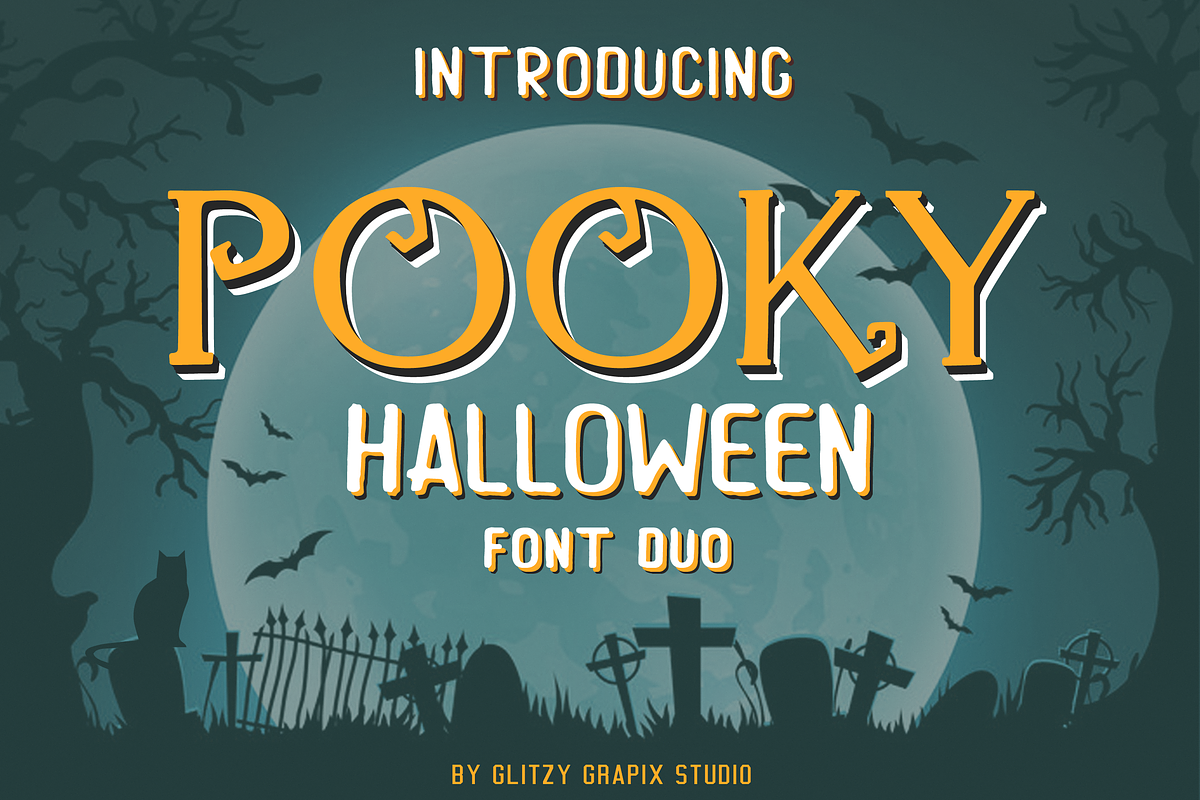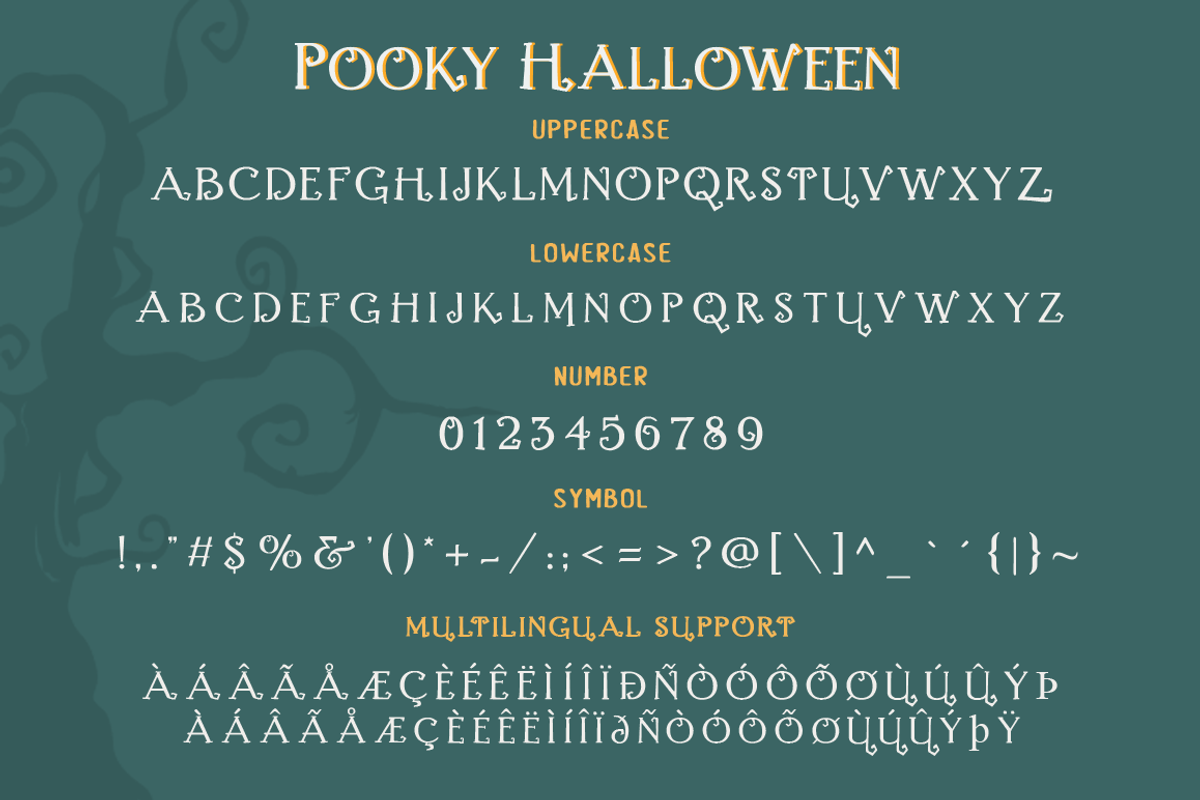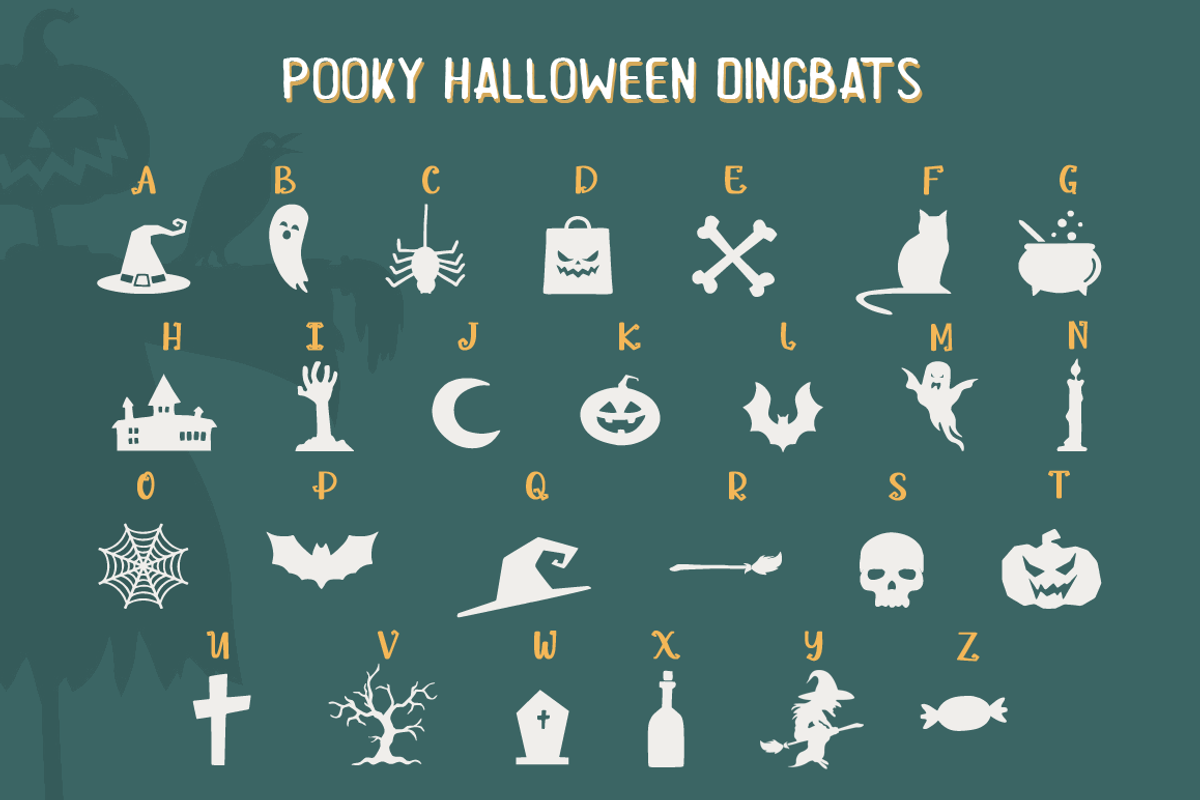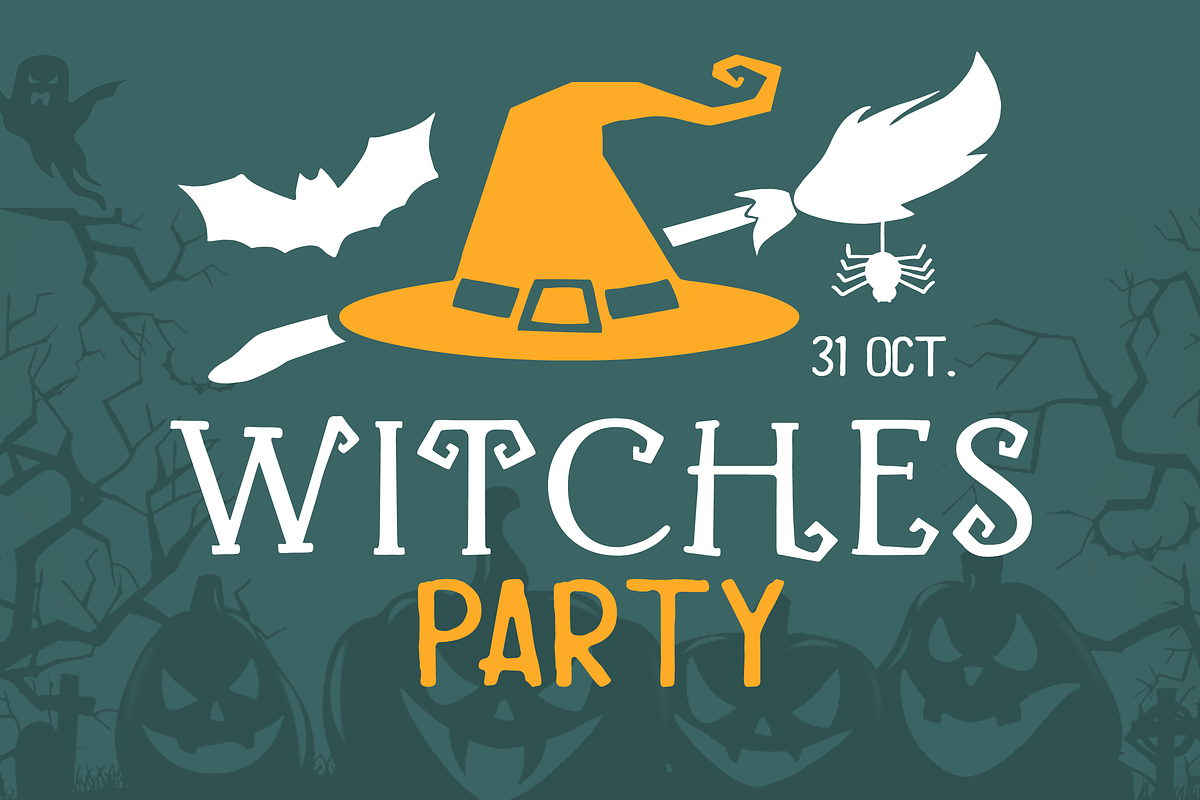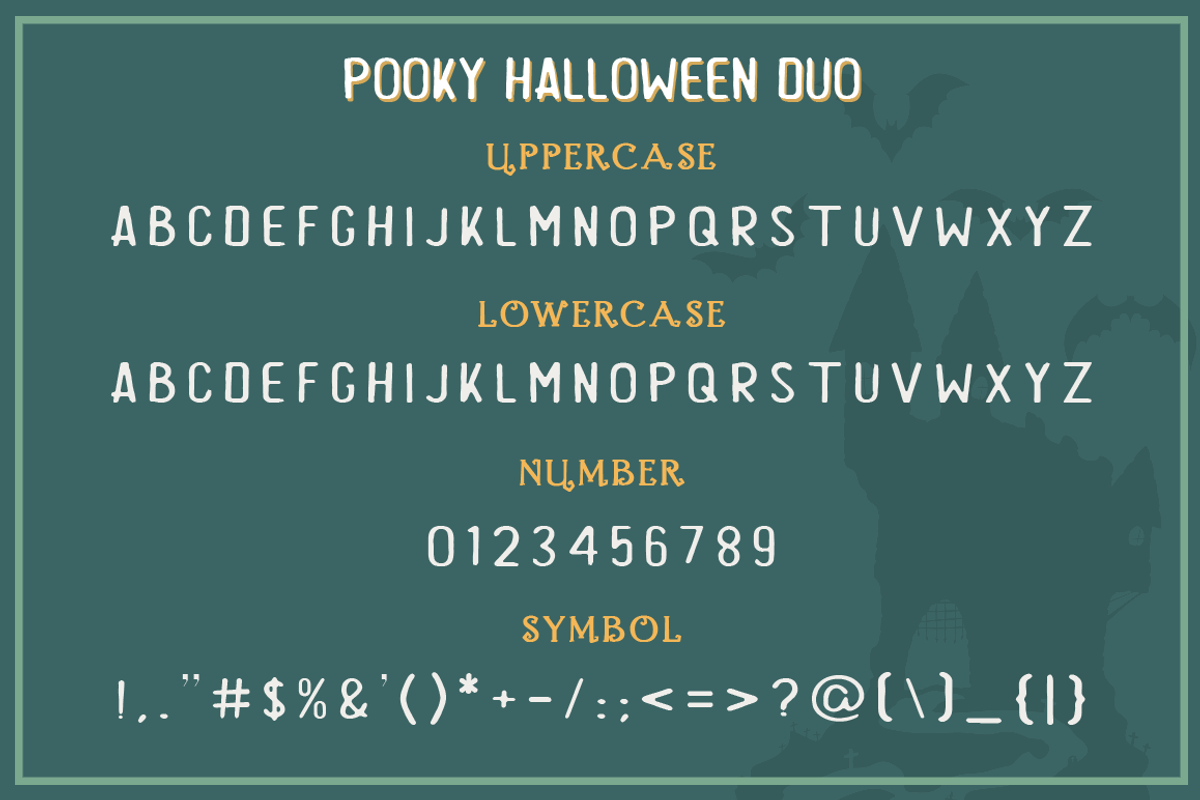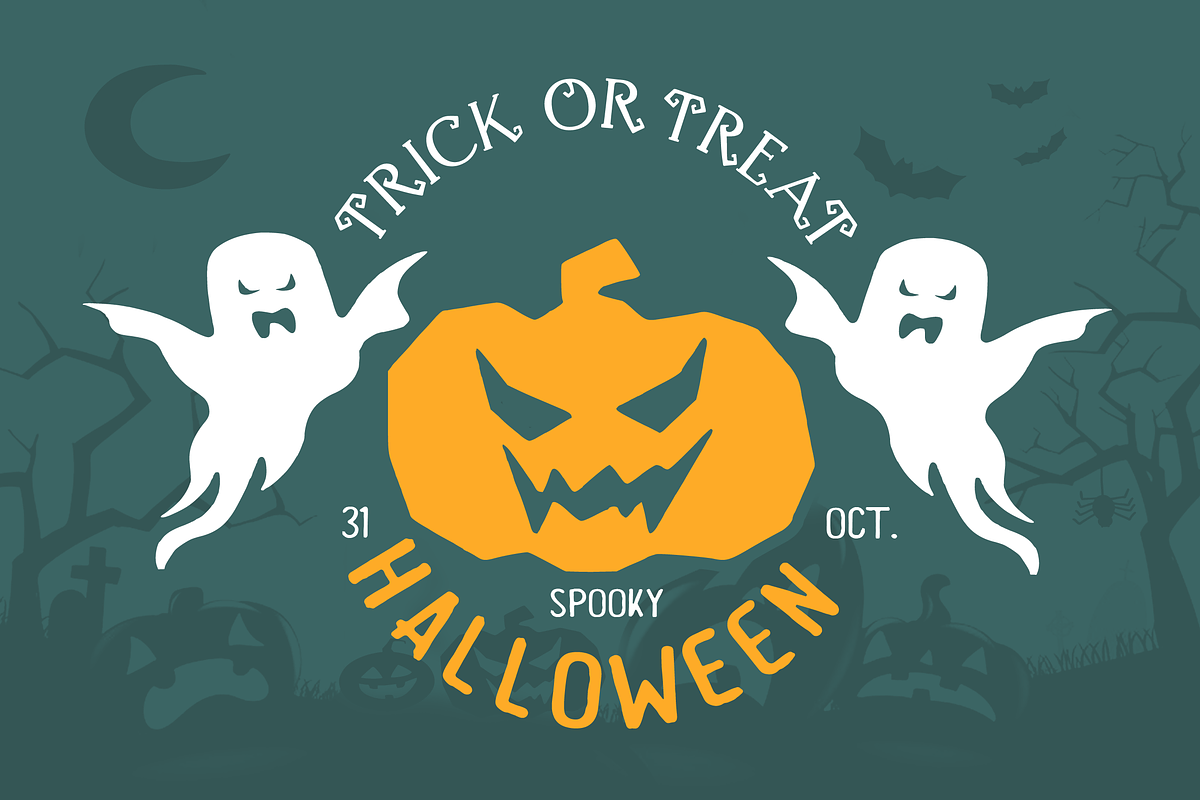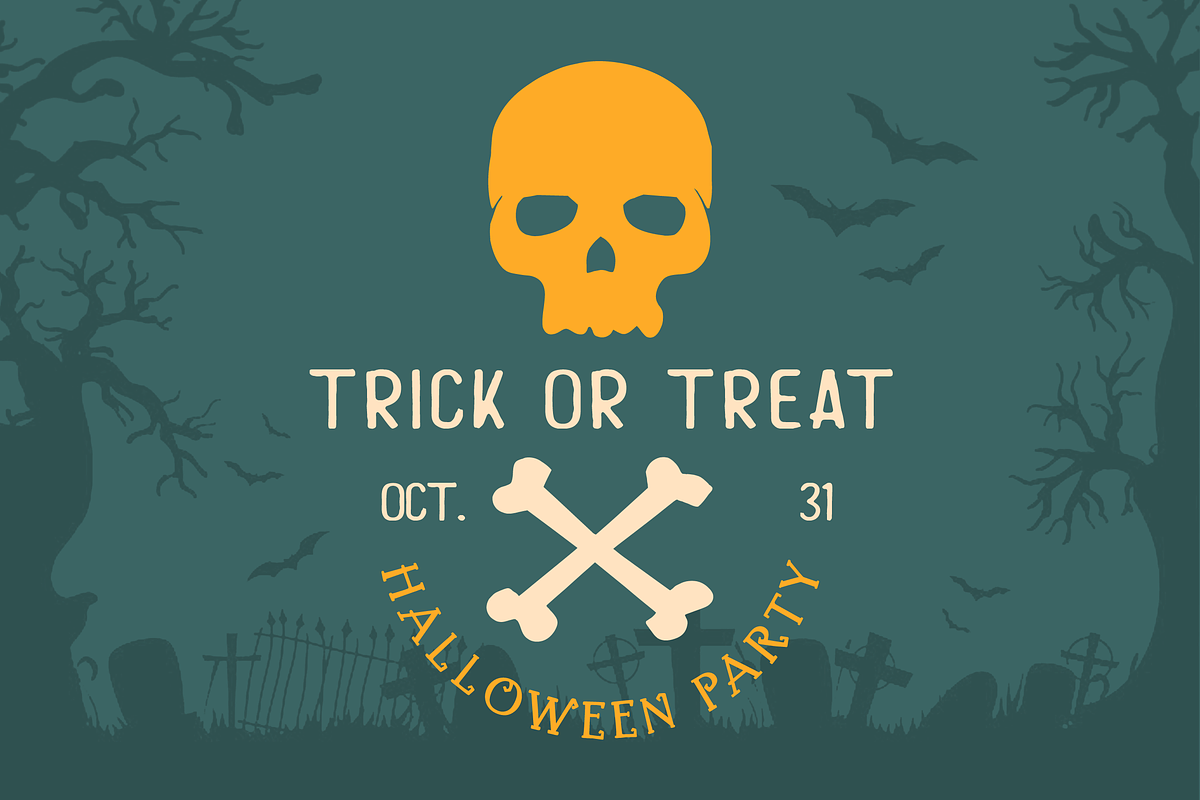
Pooky Halloween Font Due + Extras
Pooky Halloween Font Duo is a fun, spooktacular and scary font duo, designed to create bootiful projects. š
Pooky Haloween Font Duo can be used for products such as Halloween party invitations, Halloween product designs, quotes, book covers, etc.
It features Halloween dingbats that will take your projects to the next level!